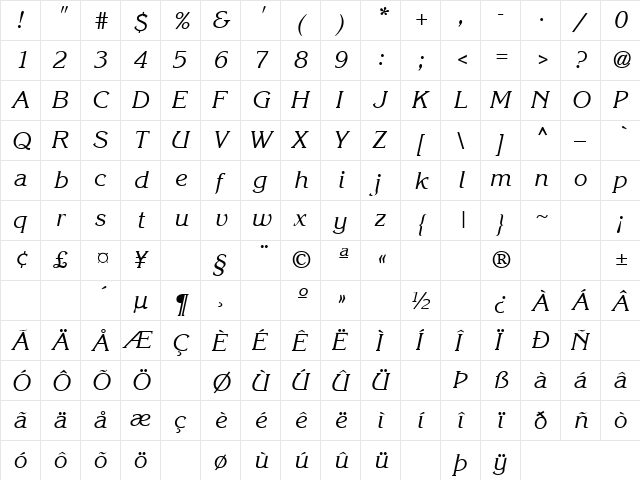
I Wanna Know Why 5 Regular
Design Context for I Wanna Know Why 5 Typeface
I Wanna Know Why 5 is a composed and adaptable typeface that performs quietly and consistently across a wide range of design contexts.
Pro Tip: Use I Wanna Know Why 5 in both headline and body roles to test its range before committing to a single application.